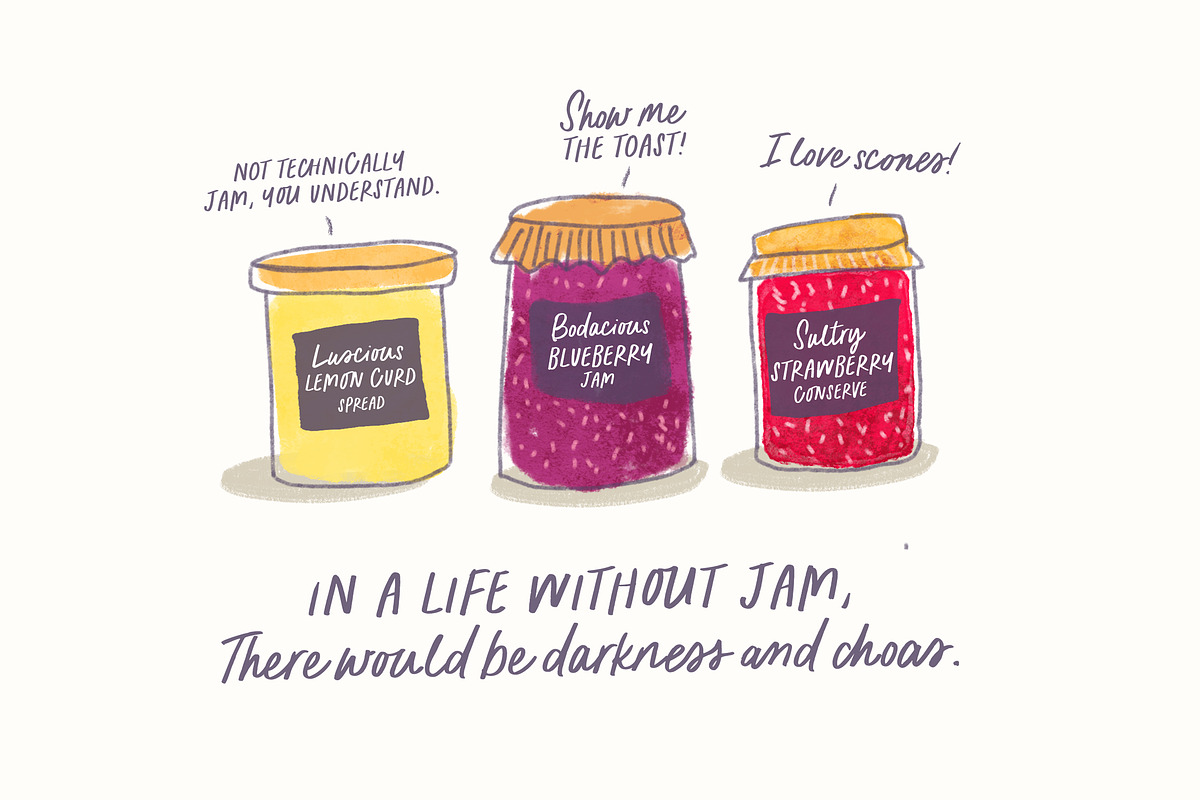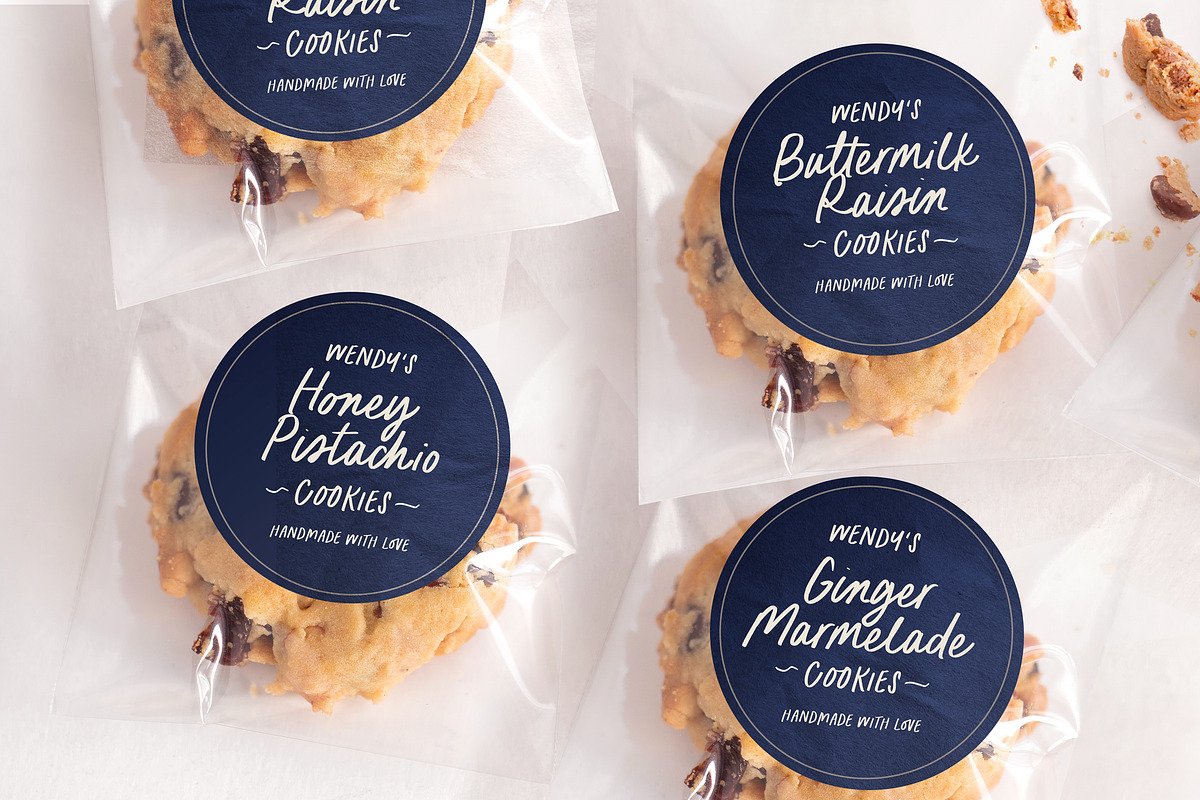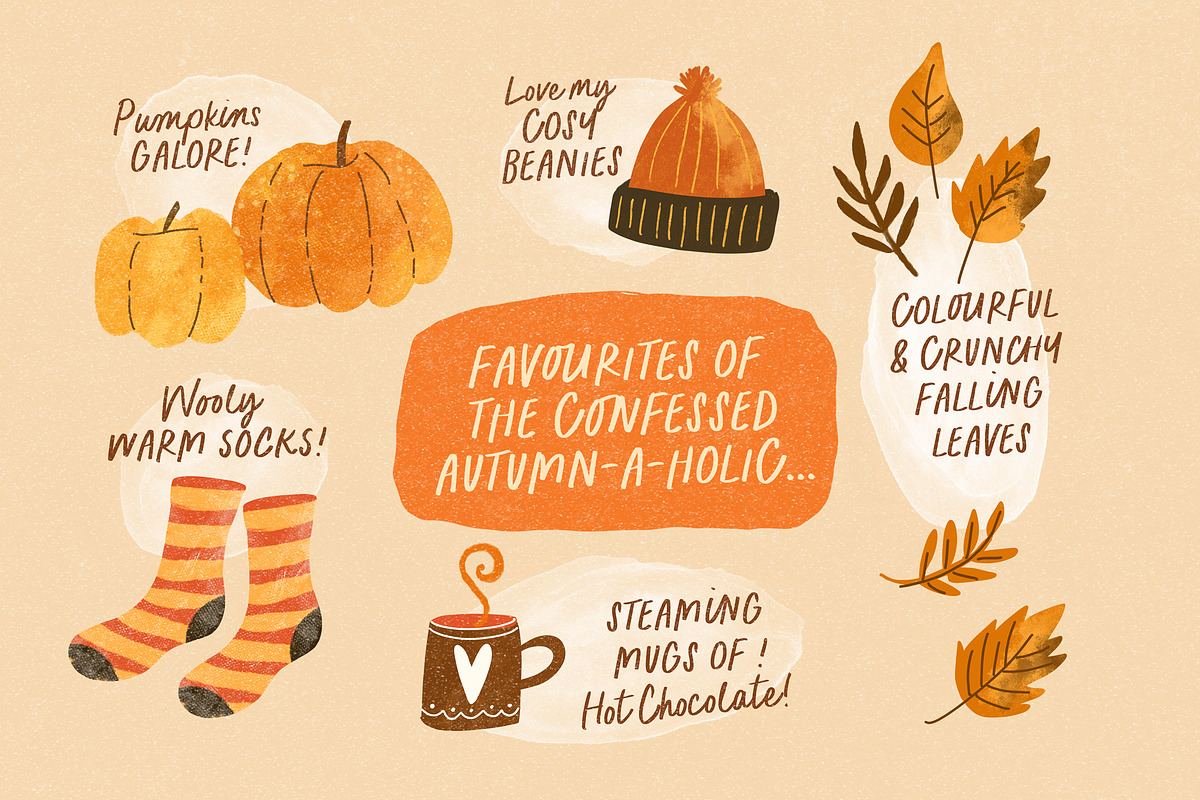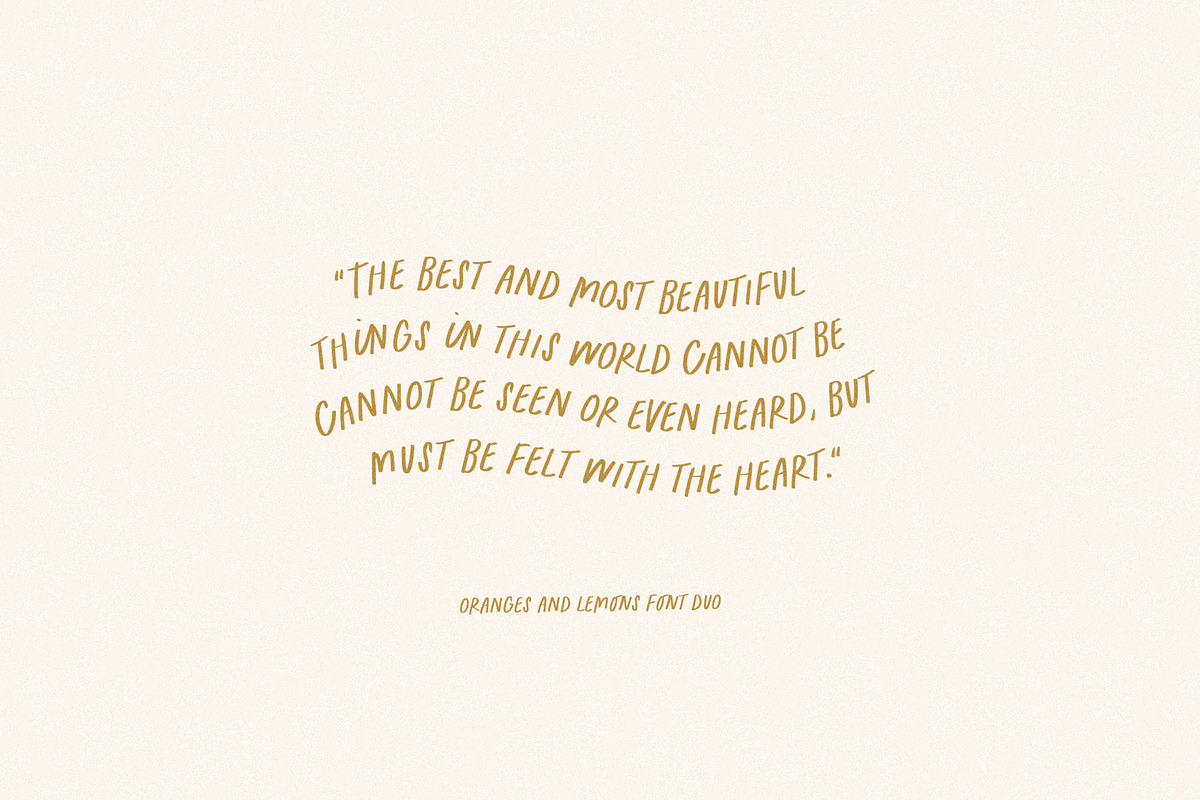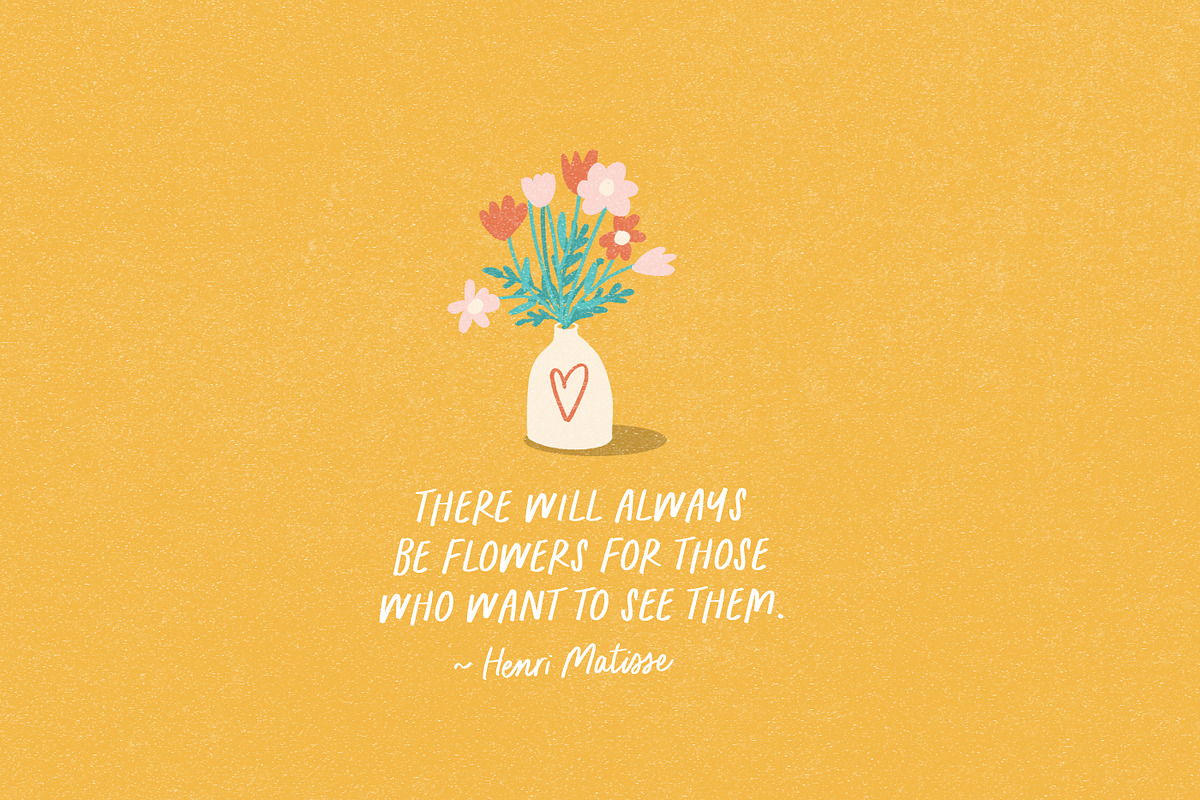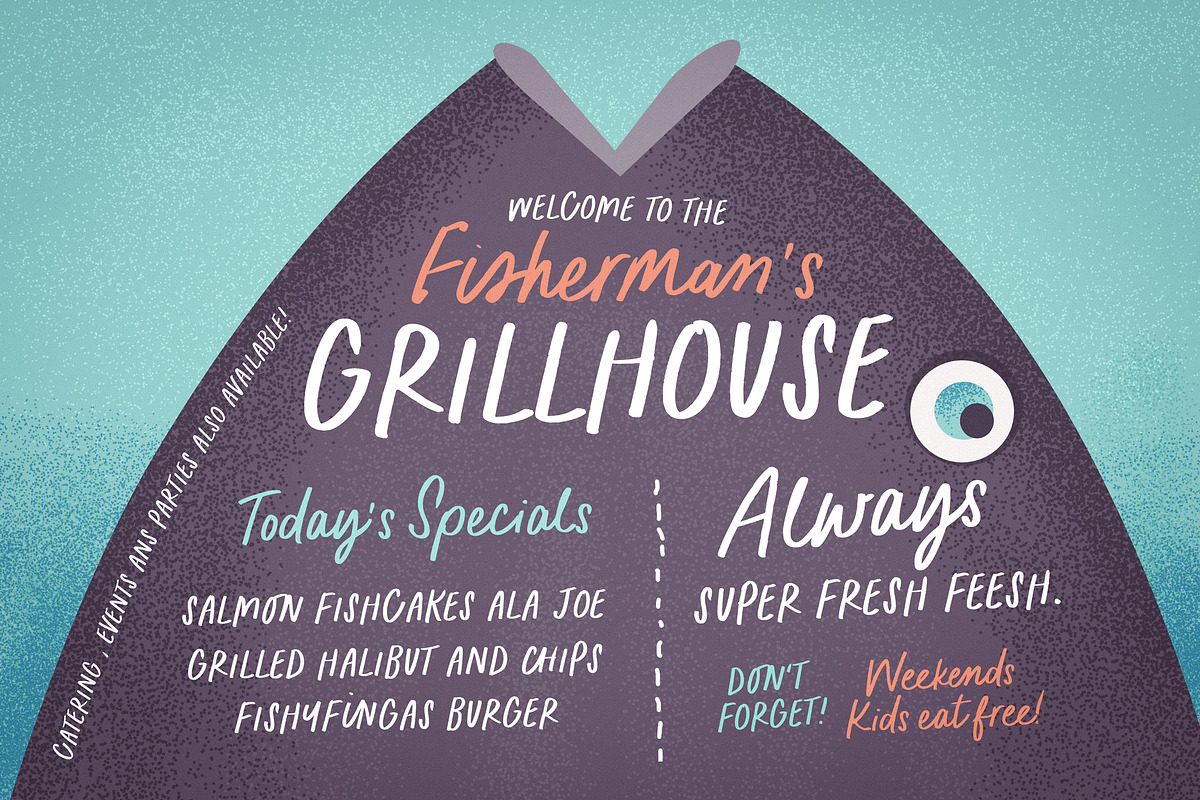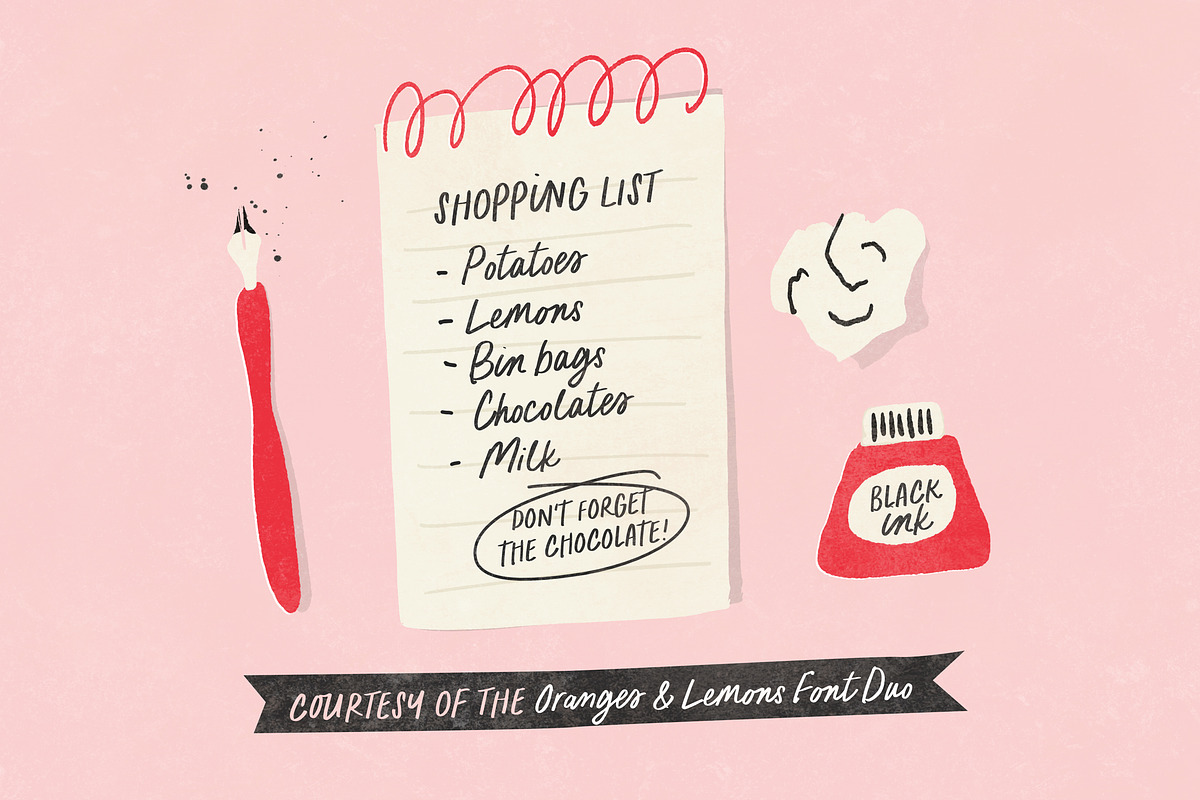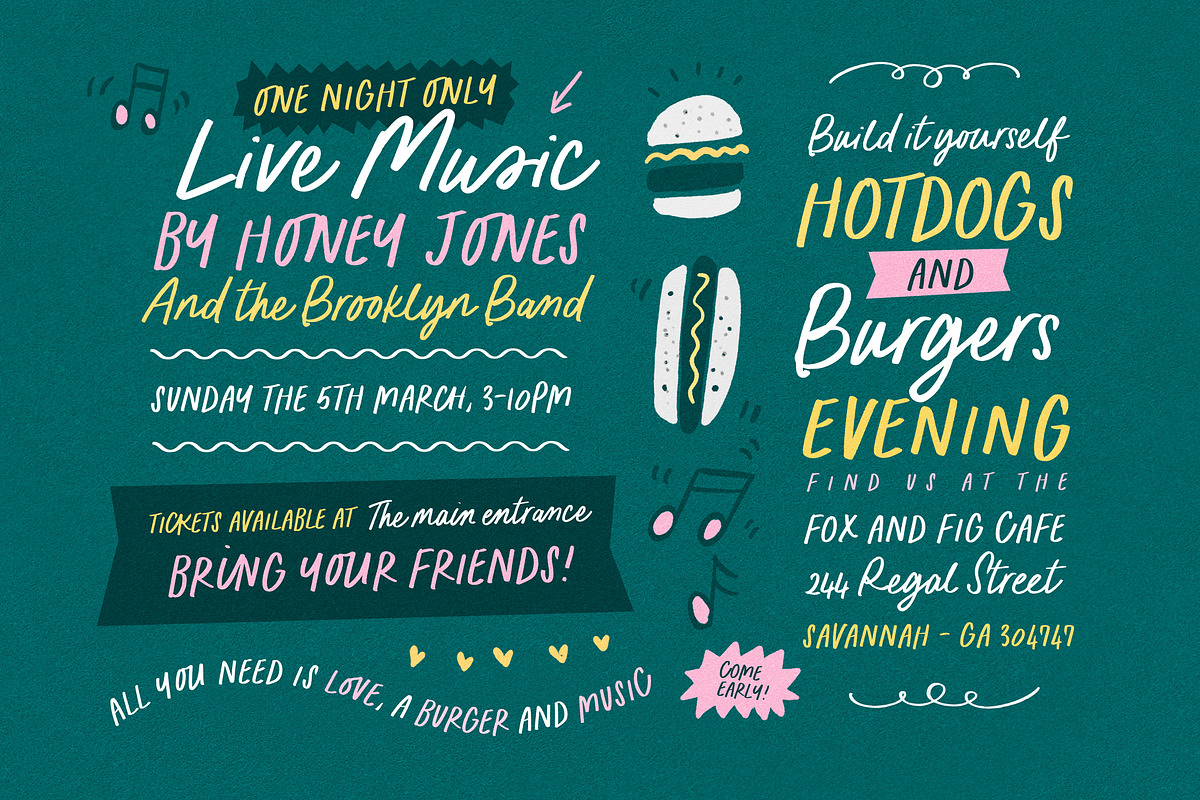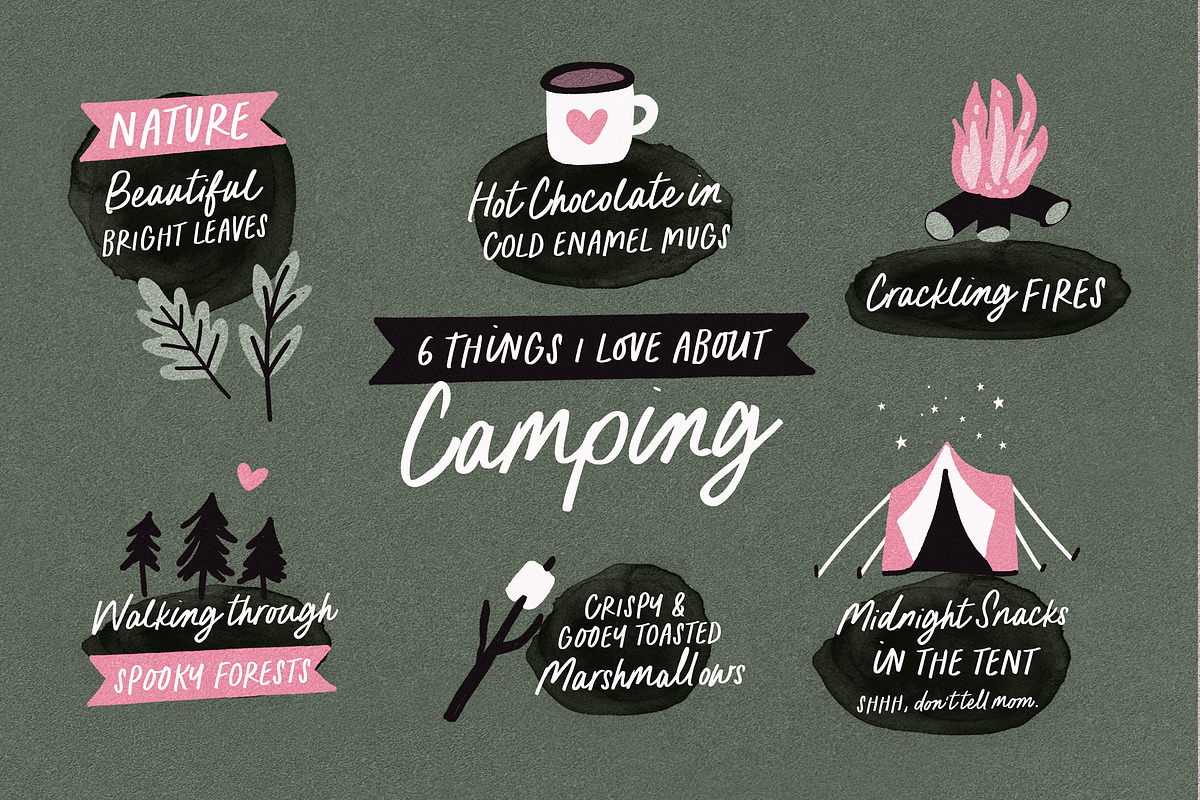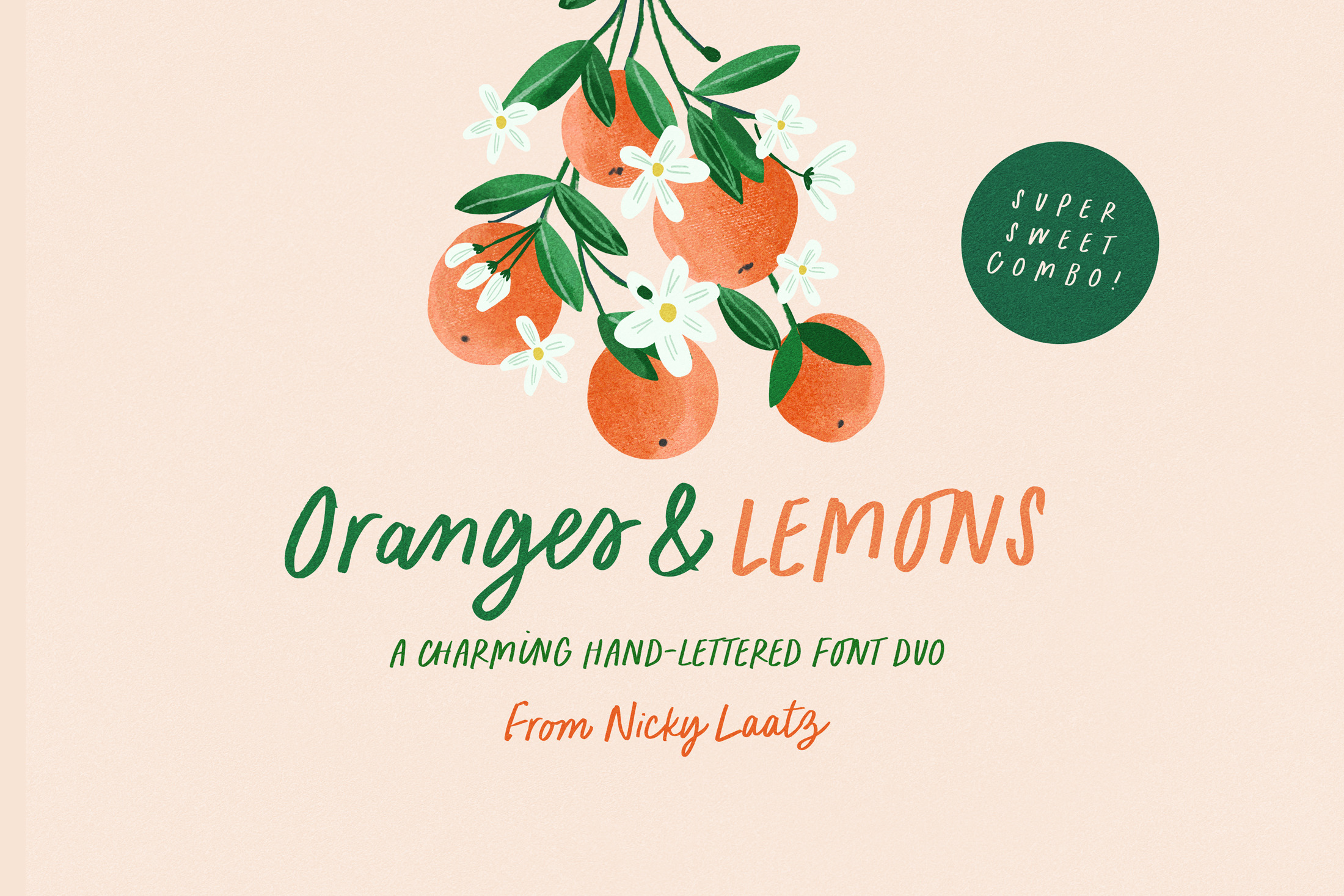
Oranges & Lemons Font Duo
Say hello to "Oranges and Lemons" :) A charming and sweet new hand-lettered font duo - perfect for casual type in greeting cards, illustrations, quotes, quaint branding, book covers, children's books, packaging and so much more :)
The duo consists of a casual handwriting marker style all-caps font, and a matching Script.
Both have some pretty ligatures built into their OpenType features - make sure you have your ligatures turned on to get their benefit :)